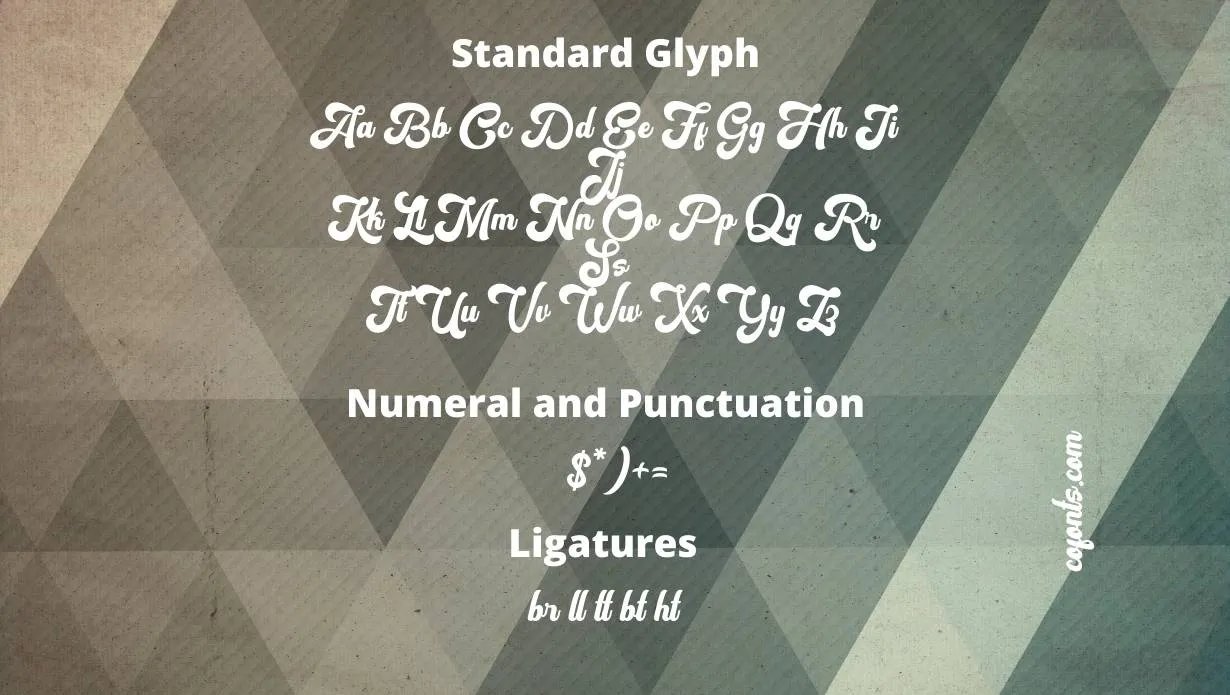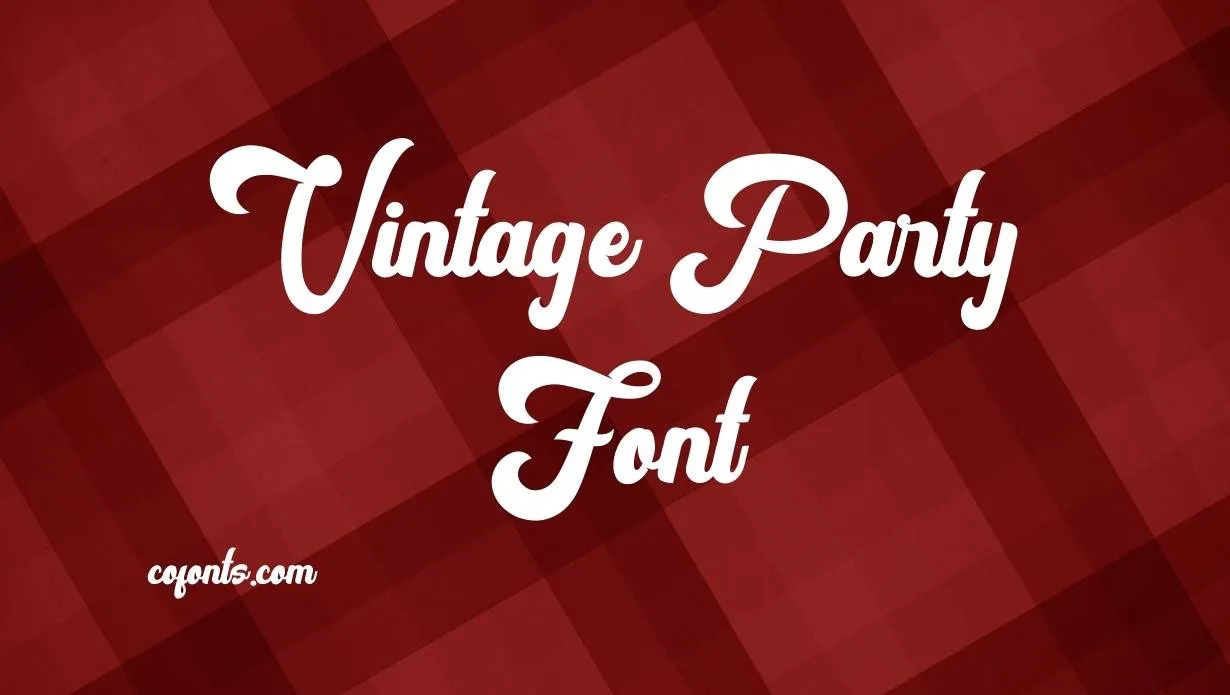
About Vintage Party Font Free Download
Vintage Party Font Free Download is a modern typeface available in multiple variants and styles.
- Vintage Party Font Regular
- Vintage Party Font Bold
- Vintage Party Font Italic